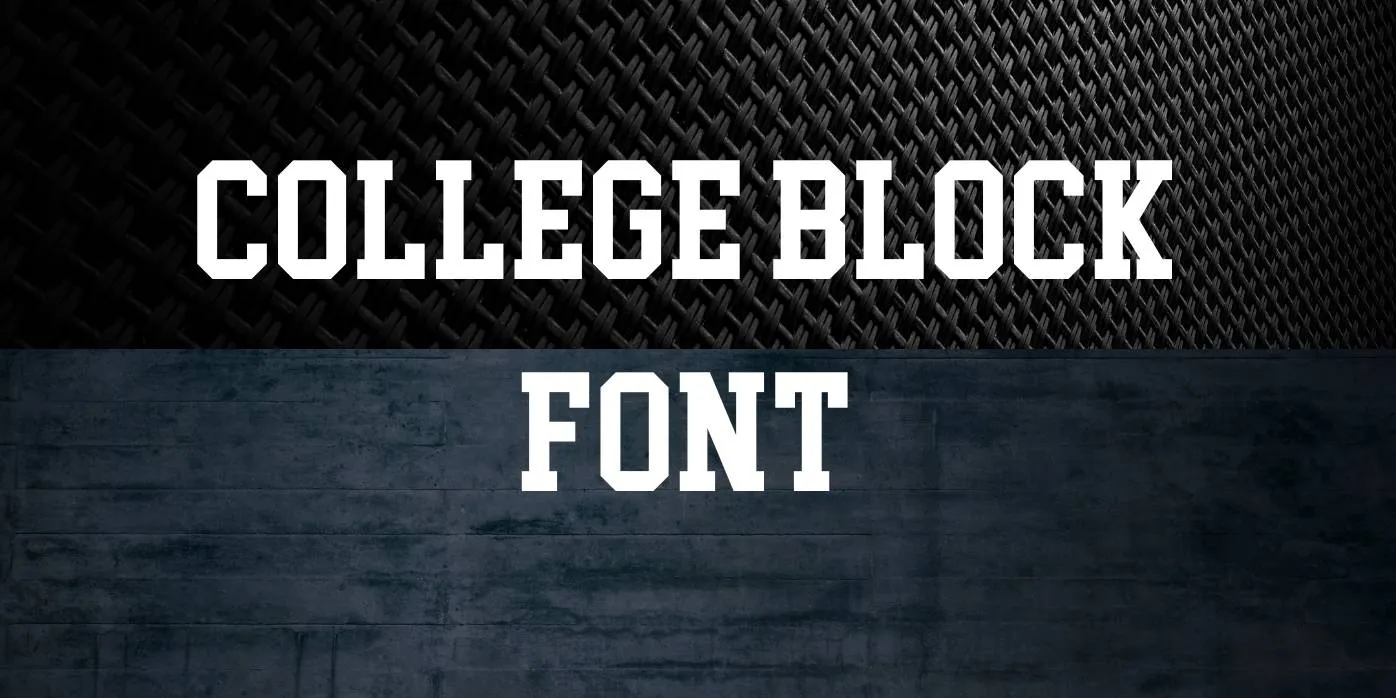
College Block Font
College Block Font is a typeface that was designed for use in college newspapers. This typeface was developed by Mr. Dennis Ludlow in shark shock foundry.  It belongs to the serif font family. It is characterized by its strong vertical lines and serifs, which give it a distinctive look.
This cute typeface is available in both regular and bold weights. Its block-letter style makes it perfect for headlines and short paragraphs. It is a very famous font all over the world. Its copy and paste are best for different textual projects.
Trajan Pro Font is similar to this classy typeface. This typeface is perfect for college newspapers because of its simple, yet stylish design. This awesome font is easy to read, even in small sizes. This stunning font is available in more than 260 special characters like Uppercase, Lowercase, Numerals, Punctuation, and symbols.